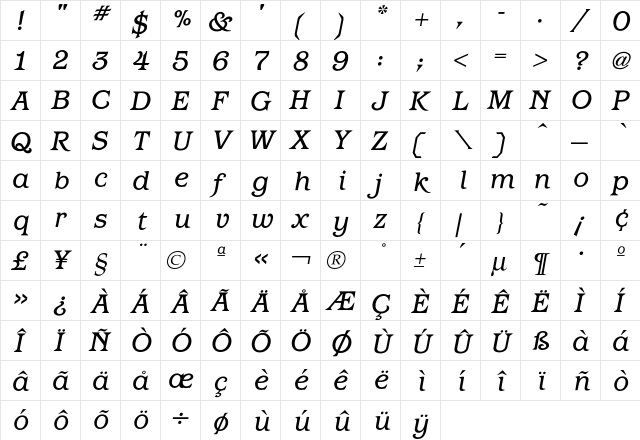
Barcelona BookItalic
Design Context for Barcelona Typeface
Barcelona takes a measured approach to typography — its balanced proportions and neutral character make it a reliable workhorse for both digital and print work. The dynamic lean of this cut emphasises speed and emphasis in any layout.
Pro Tip: Use Barcelona for emphasis, pull quotes, and subheadings where its slanted energy can add rhythm to the layout.